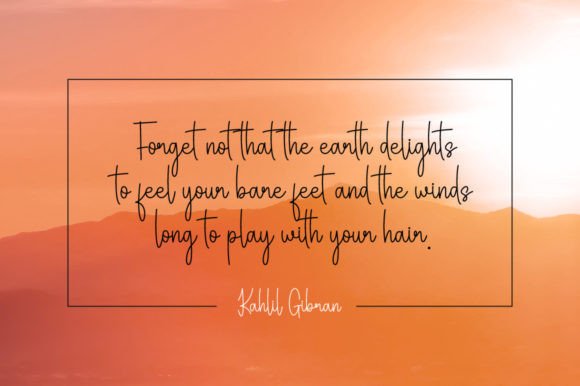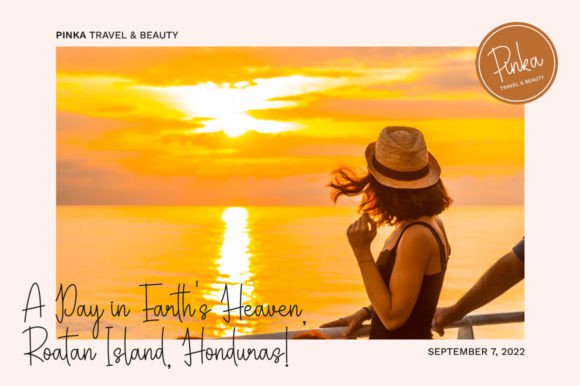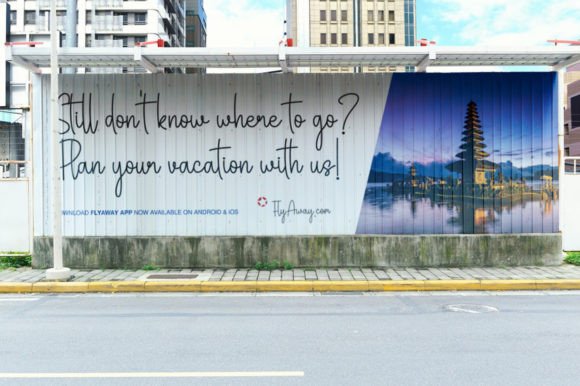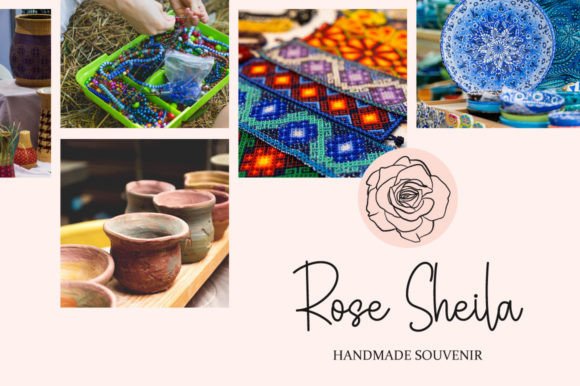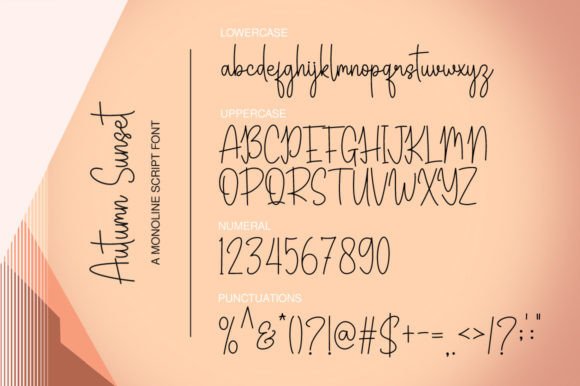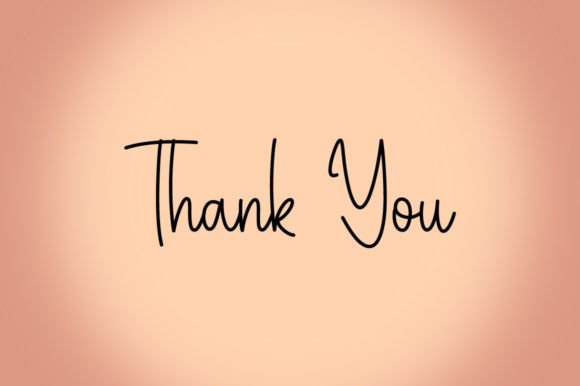
Introducing Autumn Sunset Font: Elevate Your Designs with Elegance and Romance
Are you a designer or crafter looking for a font that exudes elegance, joy, and romance? Look no further than the Autumn Sunset Font. This beautiful, handwritten font is perfect for creating stunning wedding invitations, cards, and other designs that require a personal touch. In this article, we’ll dive into the features and benefits of the Autumn Sunset Font, and explore how you can use it to take your designs to the next level.
What is Autumn Sunset Font?
Autumn Sunset Font is a carefully crafted, handwritten font that embodies the warmth and coziness of the autumn season. Its delicate and joyful appearance makes it an ideal choice for designers and crafters who want to add a touch of romance and elegance to their work. Whether you’re creating wedding invitations, greeting cards, or other designs, this font is sure to impress.
Key Features of Autumn Sunset Font
- Elegant Handwritten Style: Autumn Sunset Font boasts a beautiful, handwritten style that’s perfect for creating romantic and personalized designs.
- Dainty and Joyful: The font’s dainty and joyful appearance makes it ideal for designs that require a touch of whimsy and playfulness.
- Versatile: Autumn Sunset Font can be used for a wide range of design projects, from wedding invitations and cards to branding and packaging.
- Easy to Read: The font is clear and easy to read, making it perfect for body text and headings.
Benefits of Using Autumn Sunset Font
So, why choose Autumn Sunset Font for your designs? Here are just a few benefits of using this beautiful font:
- Adds a Personal Touch: Autumn Sunset Font’s handwritten style adds a personal touch to your designs, making them stand out from the crowd.
- Creates a Romantic Ambiance: The font’s elegant and joyful appearance creates a romantic ambiance that’s perfect for wedding invitations, anniversary cards, and other designs.
- Versatile and Adaptable: Autumn Sunset Font can be used for a wide range of design projects, from digital designs to print materials.
- Easy to Pair with Other Fonts: The font pairs well with other fonts, making it easy to create stunning font combinations.
Using Autumn Sunset Font in Your Designs
So, how can you use Autumn Sunset Font in your designs? Here are a few ideas to get you started:
- Wedding Invitations: Use Autumn Sunset Font to create beautiful, elegant wedding invitations that set the tone for the big day.
- Greeting Cards: Add a personal touch to your greeting cards with Autumn Sunset Font’s delicate and joyful appearance.
- Branding and Packaging: Use the font to create stunning brand identities and packaging designs that stand out from the crowd.
- Digital Designs: Autumn Sunset Font is perfect for digital designs, from social media graphics to website headers.
Tips and Tricks for Working with Autumn Sunset Font
Here are a few tips and tricks to help you get the most out of Autumn Sunset Font:
- Experiment with Font Sizes: Play around with different font sizes to create visual interest and hierarchy in your designs.
- Pair with Other Fonts: Don’t be afraid to pair Autumn Sunset Font with other fonts to create stunning font combinations.
- Use in Combination with Images: Use the font in combination with images to create visually appealing designs.
- Pay Attention to Kerning: Pay attention to kerning to ensure that your text looks professional and polished.
| Font Name | Autumn Sunset Font |